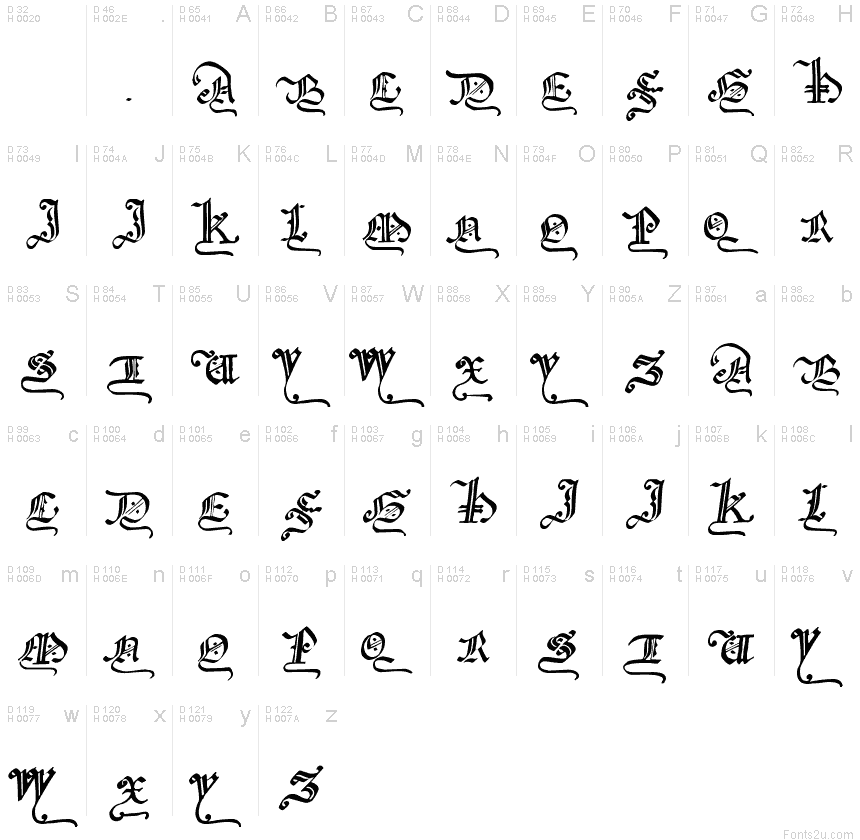
Gothic Majuscles by Vespasiano Amphiareo and M. Klein is a free ornamental blackletter font with the formal sweep of Renaissance calligraphy. Its sharply changing stroke widths, curled flourishes, and striped interior cuts make the capitals resemble hand-drawn initials from an old manuscript.
Historical publishers and heritage brands could use it for book covers, exhibition graphics, or period packaging rooted in an engraved, ceremonial aesthetic. It is especially convincing in editorial titles and invitations, and the decorative cuts can echo woodcut borders or heraldic illustration.